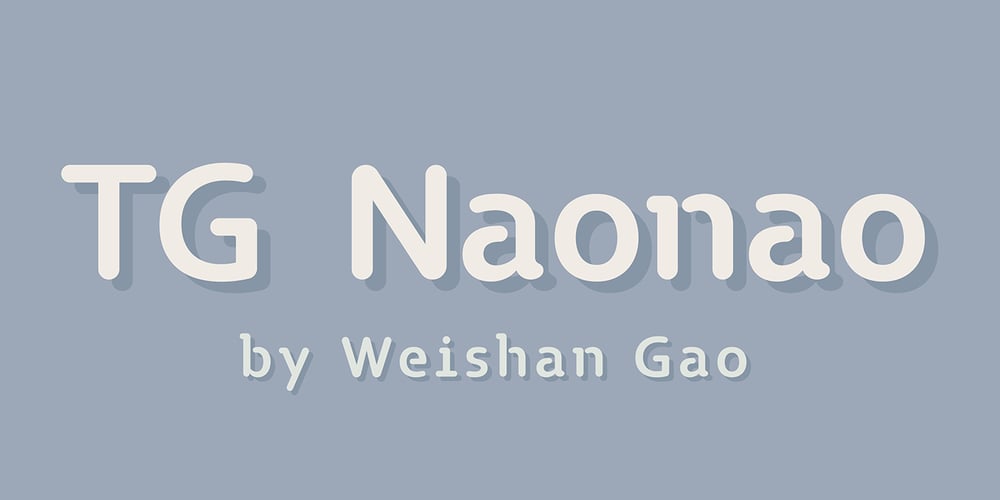
TG Naonao
TG Naonao font
TG Naonao Font Family was designed by Weishan Gao and published by Weishan Gao. TG Naonao contains 1 styles and family package options. TG Naonao is a very beautiful font suitable for titles and body text